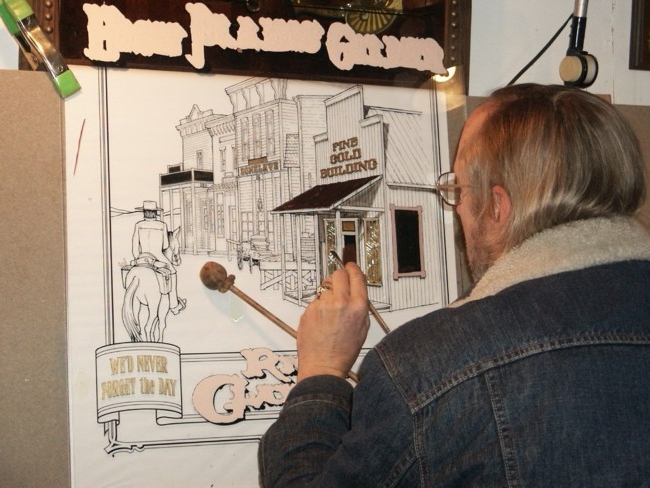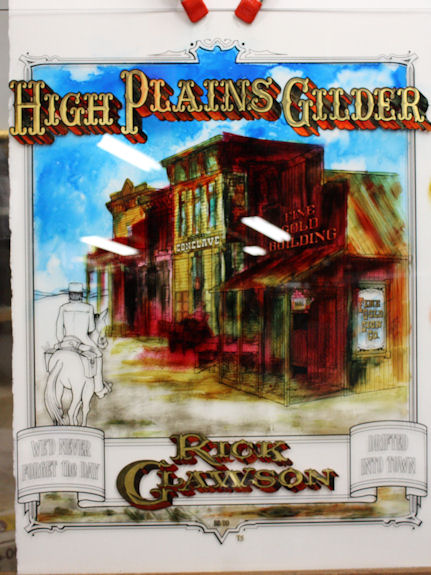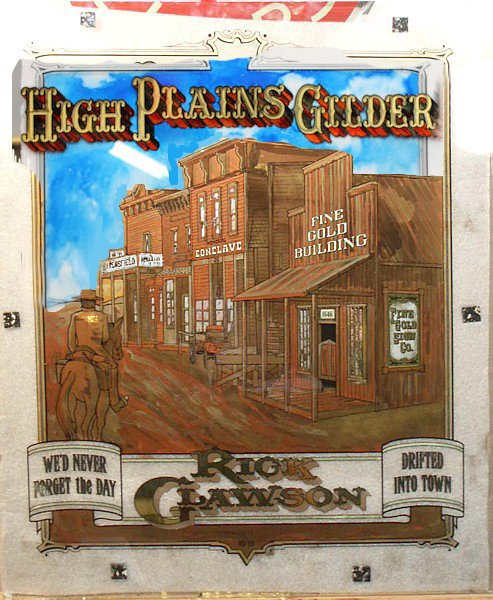
Original Dead Men
things do look right with the brush in his left hand.
He couldn't stay in the lines if his mahl stick was resting on
Gilbraltar.
He couldn't stay in the lines if his mahl stick was resting on
Gilbraltar.
That's a lot of bold talk...for a one-eyed fat man!
Jenco is a notorious thumper! He gilded by the light
of the moon with Dickinson and Roderick "The Kid" Treece!
They slapped vinyl at the Conclave in Bakersfield, California.
... best let this go Jenco!
Jenco is a notorious thumper! He gilded by the light
of the moon with Dickinson and Roderick "The Kid" Treece!
They slapped vinyl at the Conclave in Bakersfield, California.
... best let this go Jenco!
That is a lie!
What conclave were you at, mister?
what side of the glass was you on?
Good, then! There are not sufficient leaves of palladium
to make it worth my while to listen to your opinions,
day and night. Our agreement is nullified—it’s each gilder for
himself!
Adios.
What conclave were you at, mister?
what side of the glass was you on?
Good, then! There are not sufficient leaves of palladium
to make it worth my while to listen to your opinions,
day and night. Our agreement is nullified—it’s each gilder for
himself!
Adios.
looks like fun though. cant wait to see the finished product.Larry White wrote:....Present ? .......
...This project is giving me fits!.....
Why'd they have to make it so big!?!......
THE SKYS THE LIMIT
You want to gild here....with these people?
I'm expecting three more gilders...
Bosselman,
Smith,
and, His Mica in the Rain....
Okay...so here it is from the front.
This one happens to be done by Mr. Schofield (aka Steve Vigeant. of Berkeley Signs, CA),
it's all been executed in layers of mica powder, and various gilding techniques. Agreed,
some of us had our doubts, but it came out lookin' real good!
You'll just have to guess who did the art, and who printed the glass......
I'm expecting three more gilders...
Bosselman,
Smith,
and, His Mica in the Rain....
Okay...so here it is from the front.
This one happens to be done by Mr. Schofield (aka Steve Vigeant. of Berkeley Signs, CA),
it's all been executed in layers of mica powder, and various gilding techniques. Agreed,
some of us had our doubts, but it came out lookin' real good!
You'll just have to guess who did the art, and who printed the glass......
another in progress....
transparent screen inks used in a reverse transparent watercolor technique..
verre eglomise gold in the dirt
florence, italy style gilding in letters.
please don't fire!
transparent screen inks used in a reverse transparent watercolor technique..
verre eglomise gold in the dirt
florence, italy style gilding in letters.
please don't fire!
those are looking really nice. im liking the watercolor effect.
I like them both.
If I had the expertise I would combine them both to look like this, veryquick and very badly done mock up.
People do not give it credence that a group of sign artists would leave home and go off in the wintertime to honor
their mentor's passing, but it does happen. This was just the 8th meeting of the Memorial Conclave, which was held
down at Daine Ross' studio in Bakersfield, California, to honor their friend Rick Glawson.
Now that they've called us by name......
their mentor's passing, but it does happen. This was just the 8th meeting of the Memorial Conclave, which was held
down at Daine Ross' studio in Bakersfield, California, to honor their friend Rick Glawson.
Now that they've called us by name......
Re: Original Dead Men
Here's a few varmits and vagrants in action.....
Is that Emit Quincy?...
...photos courtesy of one Angus Dunfries.....
Is that Emit Quincy?...
...photos courtesy of one Angus Dunfries.....
Re: Original Dead Men
I have finished the first building. I am entertaining ideas for the rest of them.
Looks like I got my work cut out for me there.......
Re: Original Dead Men
Those two on the end...
Cut 'em out.
Do like I tell ya.
Cut 'em out.
Do like I tell ya.
won’t be so good. That artwork can be hard on a gimp.
You boys post a picture of your progress and I'll give you some
good information on what to do.
Best let this go, LeBlake.
Add one more line, and I'll stove your piece in.